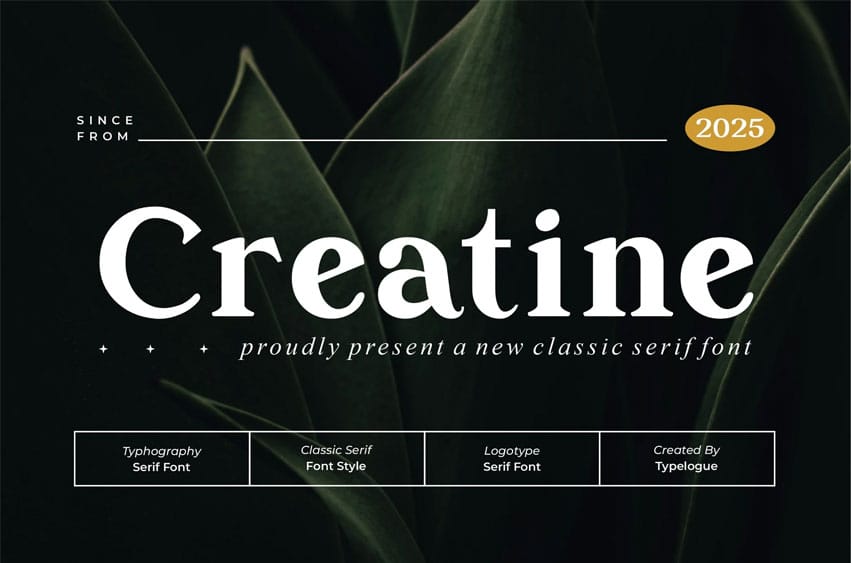
Creatine Font is a refined classic serif font that brings timeless elegance to your designs. With its smooth curves, balanced contrast, and strong character, this typeface is perfect for those who seek both sophistication and clarity. Whether you’re designing branding materials, packaging, wedding invitations, or editorial layouts, Creatine delivers a premium look that feels both modern and rooted in tradition. Its versatile serif structure makes it ideal for high-impact headlines and graceful body text.